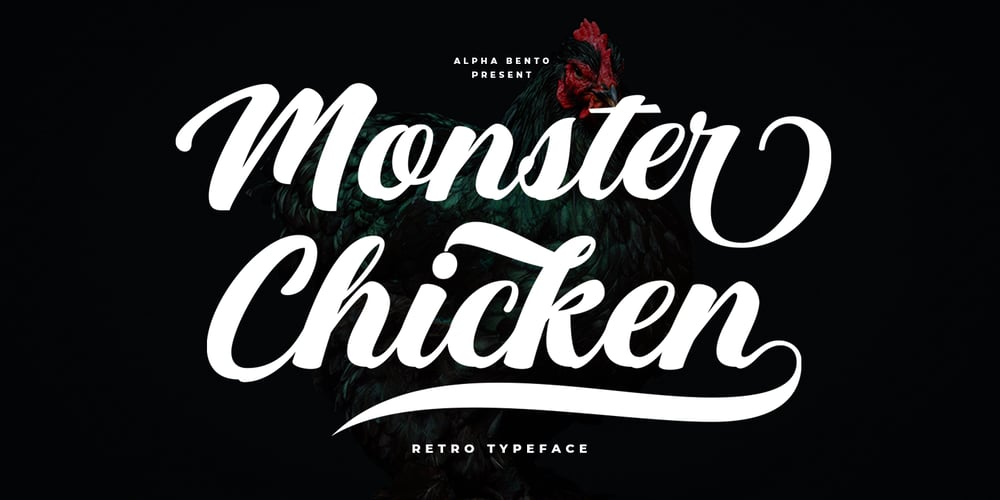
Monster Chicken Font Family was designed by Rinaldi Novianda and published by Alpha Bento. Monster Chicken contains 1 styles and family package options. Monster Chicken is a soft typefaces. bold, elegant & fun vintage script font. Can be used for various purposes.such as logos, wedding invitation, t-shirt, letterhead, signage, news, posters, badges etc.Monster Chicken features 329 glyphs and 141 alternate characters, ligatures, swash and multiple language support.To enable the OpenType Stylistic alternates, you need a program that supports OpenType features such as Adobe Illustrator CS, Adobe Indesign & CorelDraw X6-X7.There are additional ways to access alternates/swashes, using Character Map (Windows), Nexus Font (Windows), Font Book (Mac) or a software program such as PopChar (for Windows and Mac).Need help? If you need help or advice, please contact me by e-mail. :)Thank you!